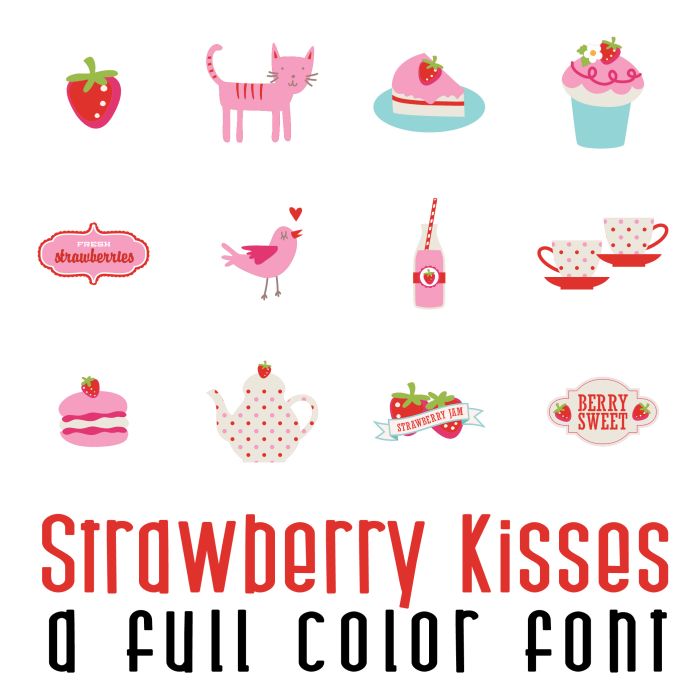
This fun full color font features 26 love, strawberries and Valentiney imagery. Perfect for classrooms, teachers, gifts, decor, scrap book pages, planner stickers and more!